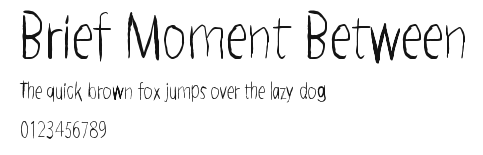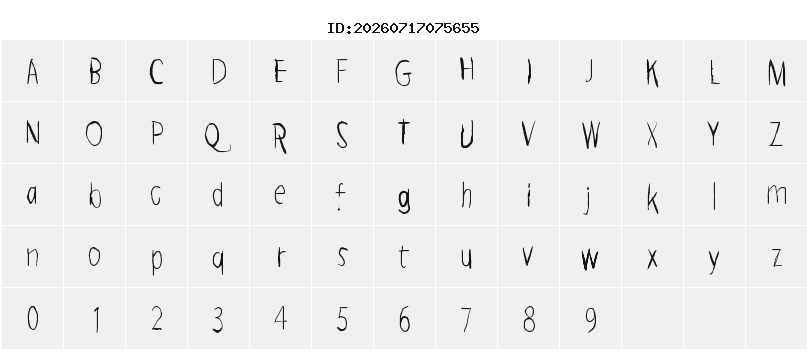
• Font Name: Brief Moment Between
• Full Font Name: Brief Moment Between
About Brief Moment Between.ttf
Brief Moment Between.ttf is a modern, elegant sans-serif font designed for ultimate readability and visual harmony. Perfect for branding, headlines, web design, and print materials.